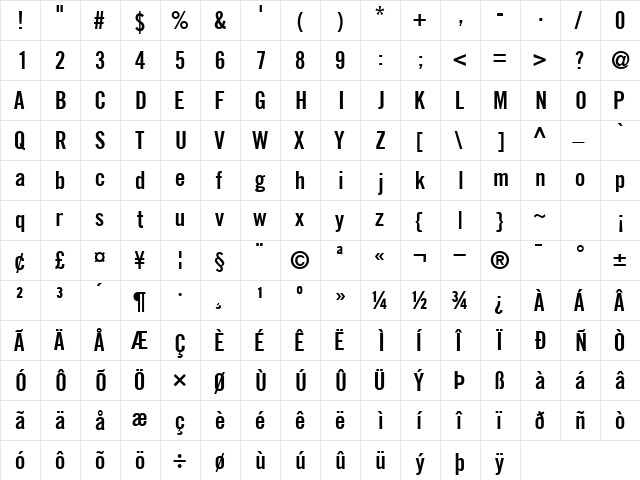
CommerceBlackCondSSK Regular
Design Context for CommerceBlackCondSSK Typeface
CommerceBlackCondSSK takes a measured approach to typography — its balanced proportions and neutral character make it a reliable workhorse for both digital and print work. Its narrow stance lets it pack a punch even in space-constrained designs.
Pro Tip: Use CommerceBlackCondSSK in both headline and body roles to test its range before committing to a single application.